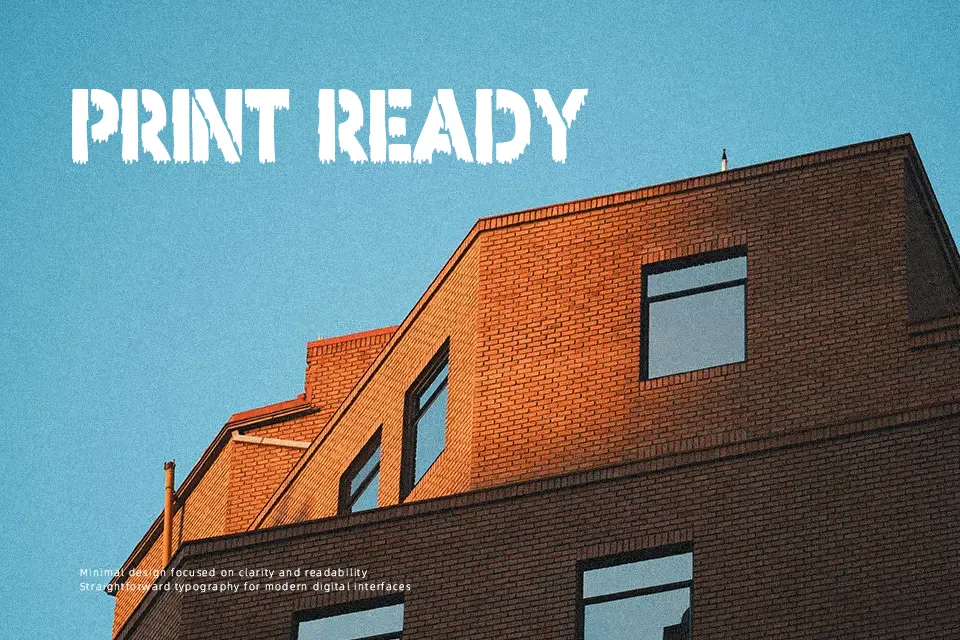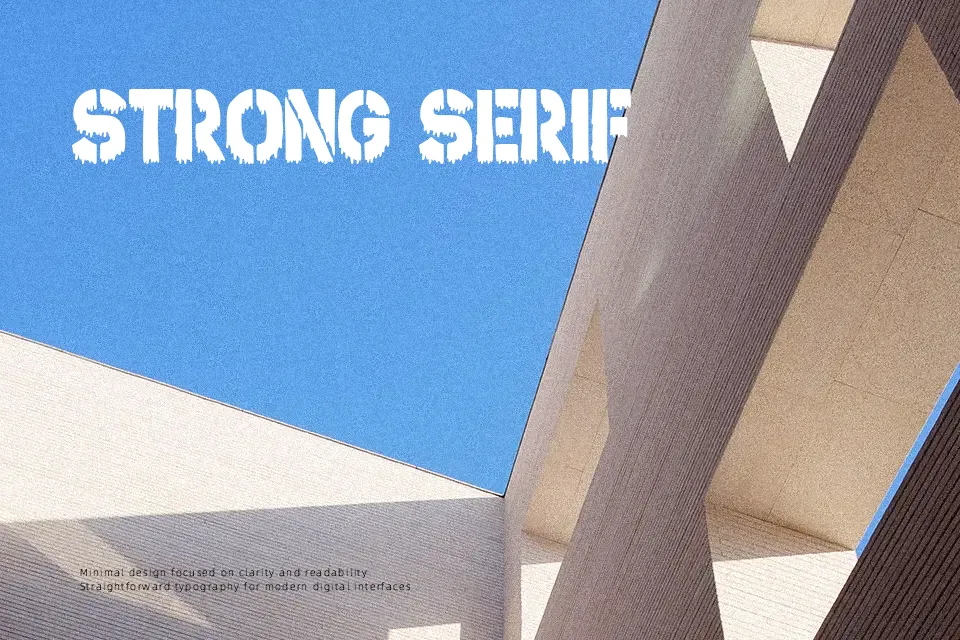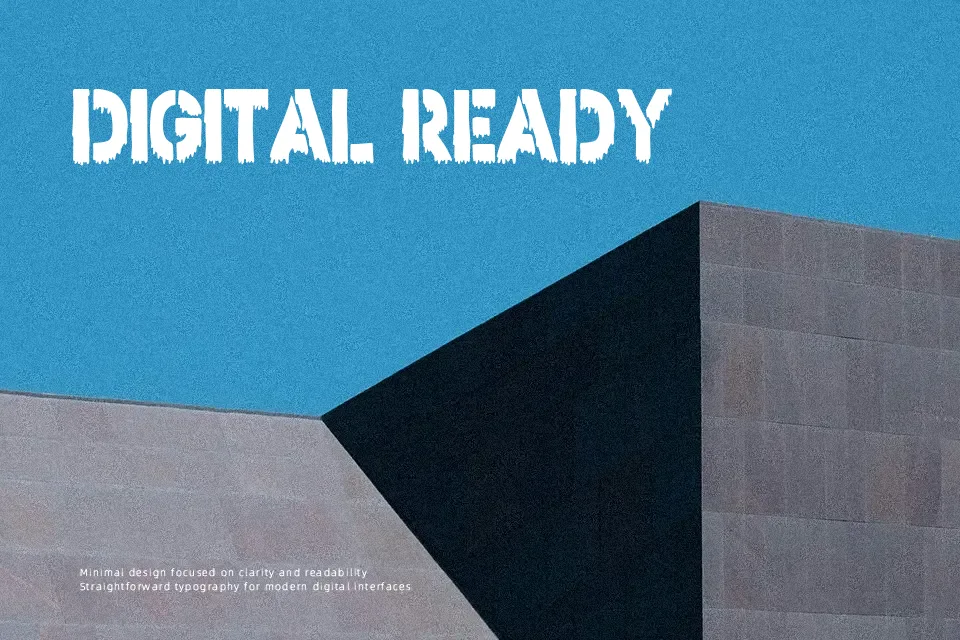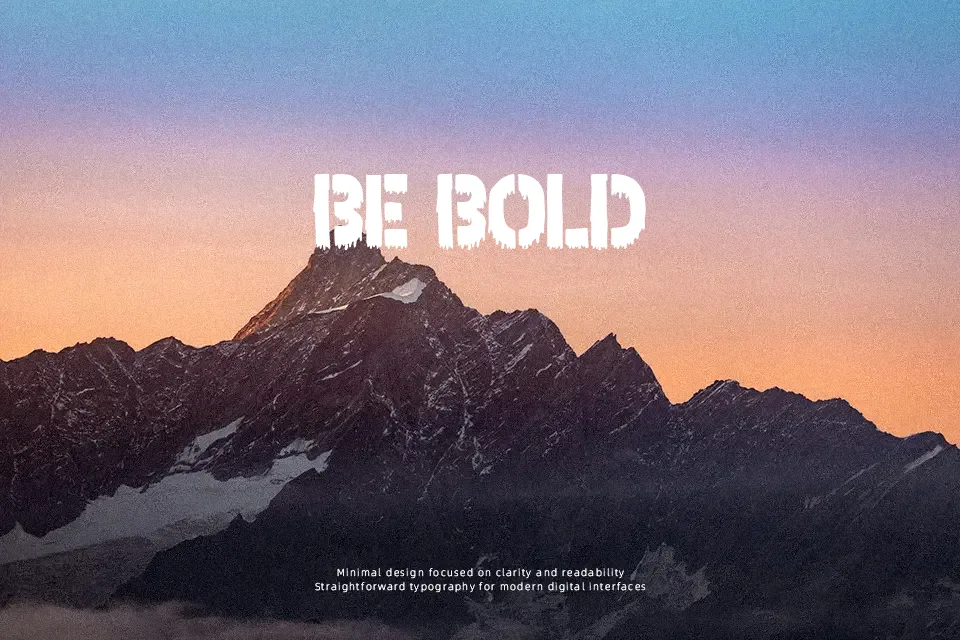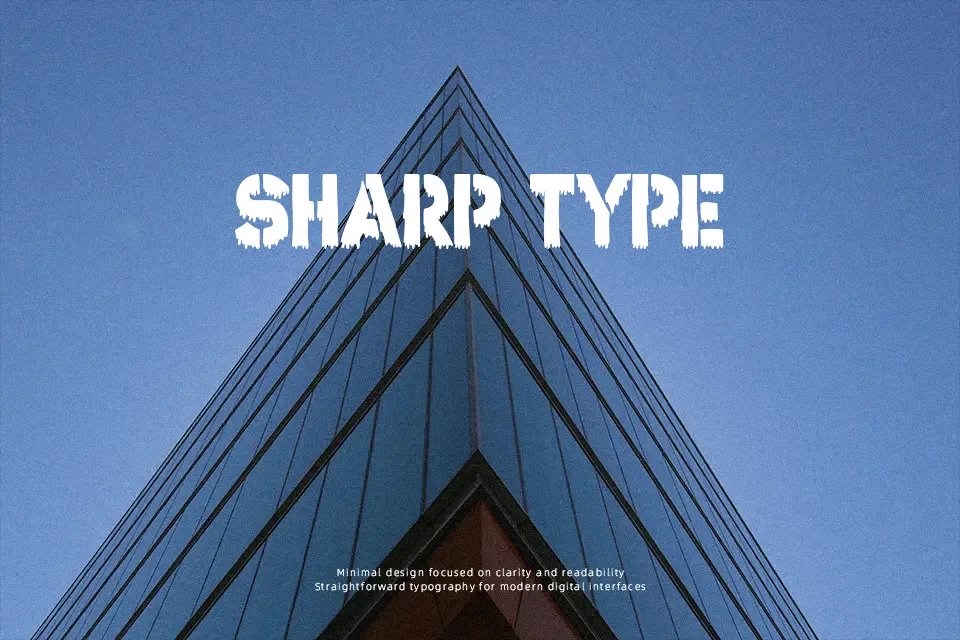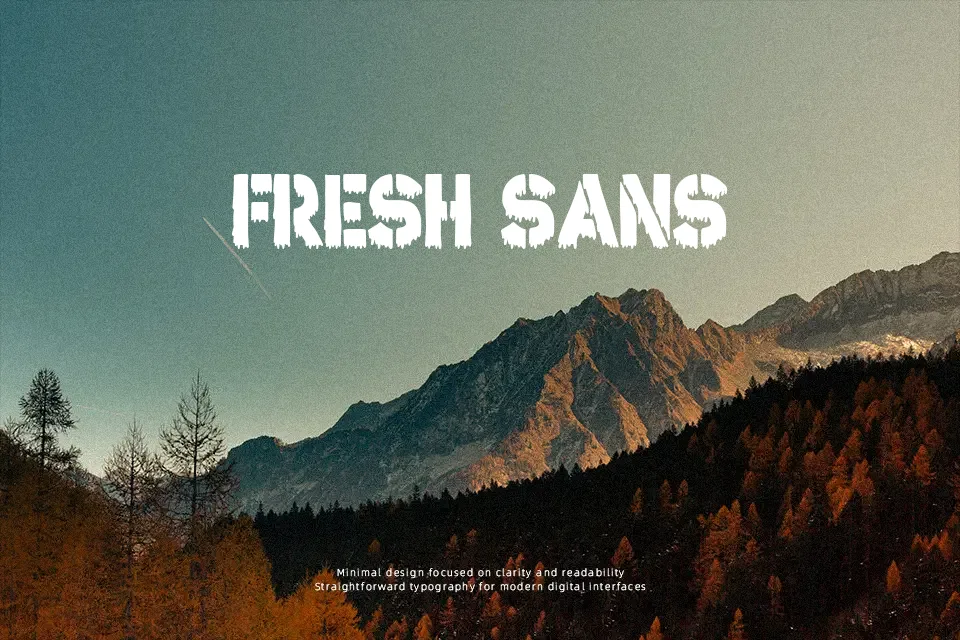
Bloody Stencil Font
Bloody Stencil Font blends the rigid, utilitarian structure of military stencil lettering with a gruesome, dripping blood effect. The thick, bold strokes maintain strong legibility while irregular slashes and liquid-like drops create a distinctly macabre impression. This decorative display typeface carries a dark, grunge-inspired energy that immediately captures attention. It performs exceptionally well on Halloween event flyers, horror video game covers, and heavy metal album artwork where an aggressive tone is required. However, the heavy thematic stylization means it will clash terribly with corporate branding, elegant wedding invitations, or extended body text. Compared to standard distressed fonts, its liquid accents give it a specifically horror-focused niche.
Halloween event promotional materials, horror movie and indie game titles, grunge-style band merchandise
Professional corporate documents, lengthy paragraphs or body text, formal wedding invitations
Perfect for film, gaming, and halloween, with a dark and decorative style.